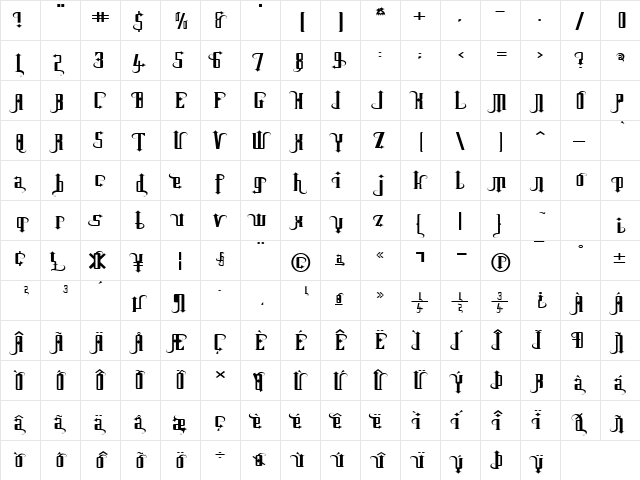
Flytrap Brier Regular
Design Context for Flytrap Brier Typeface
Flytrap Brier is a composed and adaptable typeface that performs quietly and consistently across a wide range of design contexts.